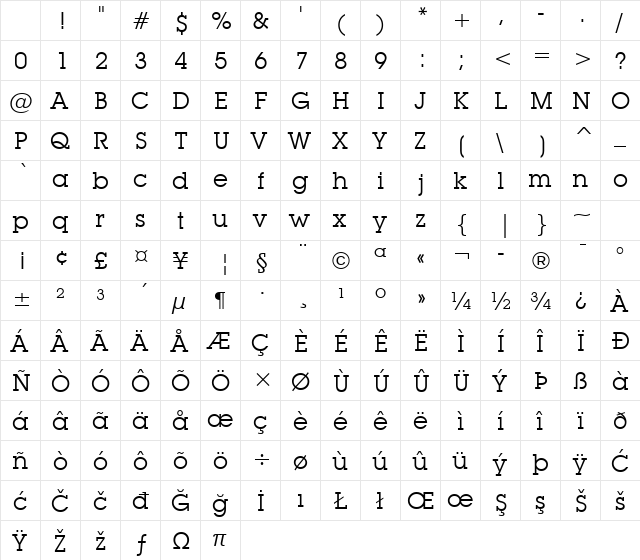
Complete LubalGraph Bk BT Book glyph index. Displaying only characters natively supported by LubalGraph Bk BT Book font.
LubalGraph Bk BT is a composed and adaptable typeface that performs quietly and consistently across a wide range of design contexts.